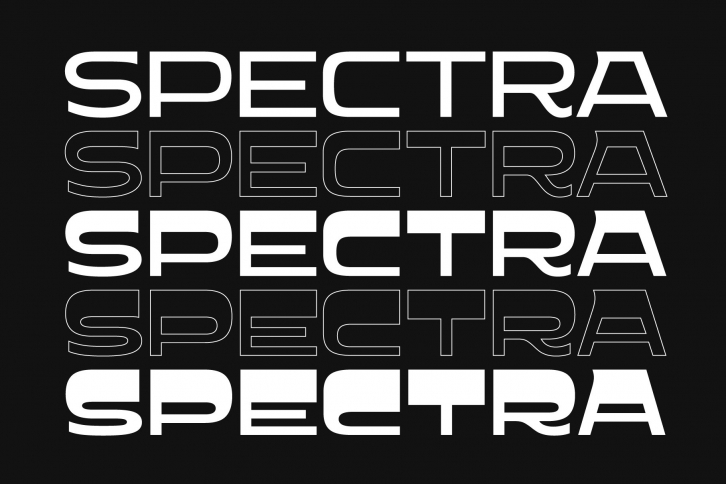
Version 2.0 is live! Five total display weights with a variable version included! Based on the type found on old cassettes, Spectra is a modern rendition of an oldie. It's a reverse weight display face perfect for headlines and getting weird. Comprised of a set of capitals, numbers, basic symbols, and punctuation.